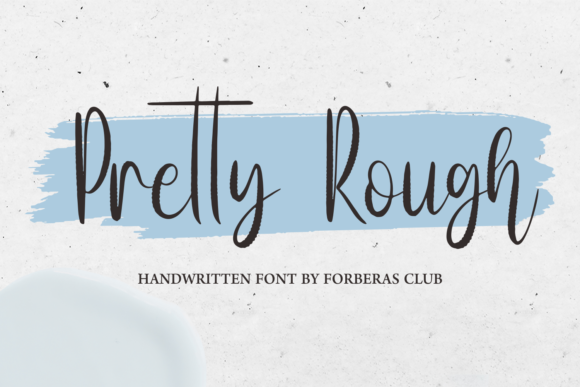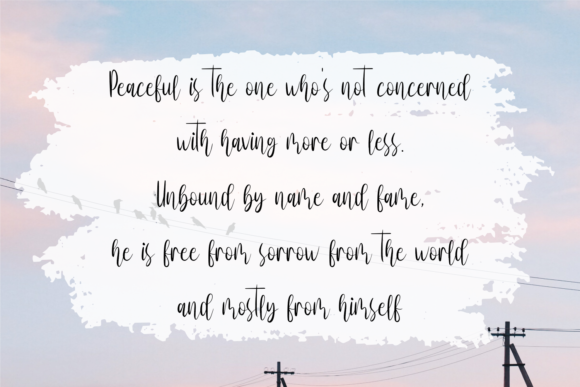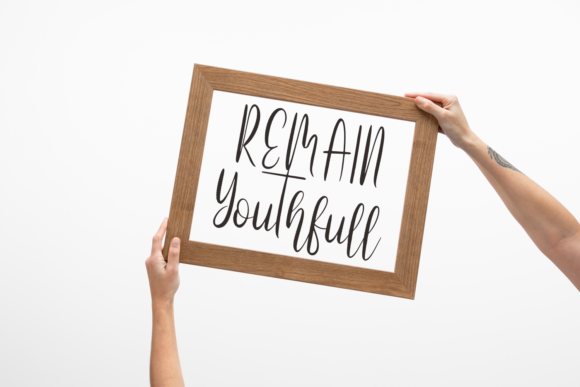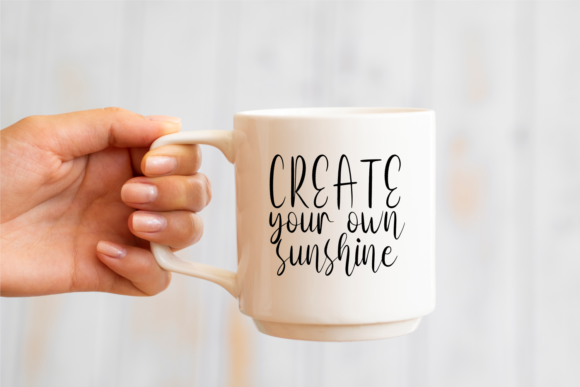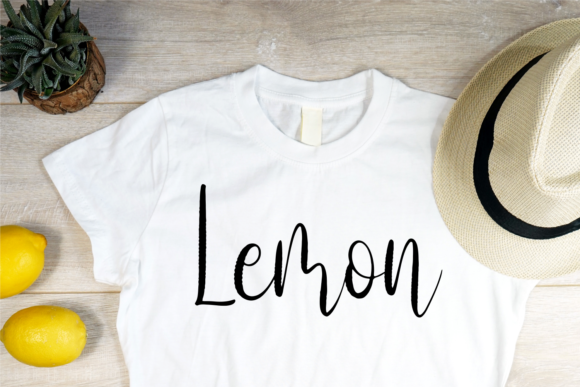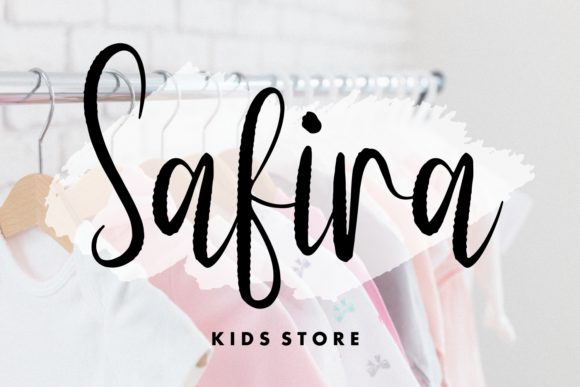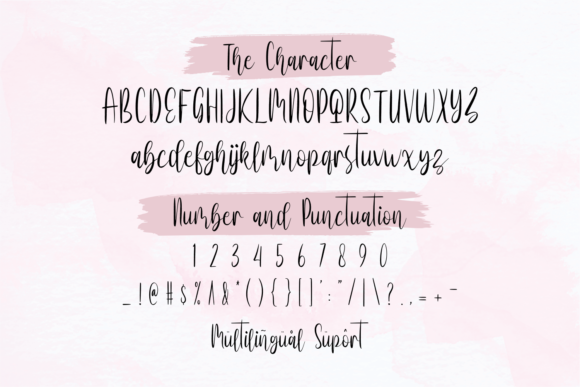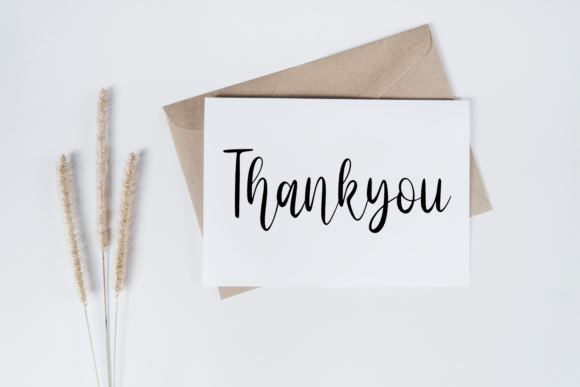
Pretty Rough Font
About Pretty Rough Font
Introducing “Pretty Rough,” a beautiful script font that adds a unique and distinctive touch to your creative projects. With its charming and slightly rugged aesthetic, Pretty Rough is a versatile font suitable for a variety of applications.
Whether you’re working on blog posts, logos, branding, ads, invitations, greeting cards, planners, photo albums, decorations, or any other project, Pretty Rough brings a touch of character and individuality to your designs. The script style of this font blends beauty with a hint of roughness, creating a visually appealing and interesting text.
In blog posts and ads, Pretty Rough becomes a captivating element that stands out and infuses a sense of personality. Logos and branding benefit from the font’s beautiful script, offering a distinct and memorable visual identity. Invitations and greeting cards take on a unique charm, setting the tone for a special and one-of-a-kind occasion.
Planners and photo albums gain a touch of character with the addition of Pretty Rough, giving your layouts an artistic and handmade feel. Decorations, whether for digital or print applications, acquire a distinctive and appealing quality, making any space or design more interesting.
Pretty Rough stands out as more than just a font—it’s a design tool that adds a creative edge to your projects. Its adaptability and unique style make it a valuable asset for various creative endeavors. Choose Pretty Rough to infuse your designs with a touch of beauty and individuality, turning each project into a visually appealing and memorable piece of art.